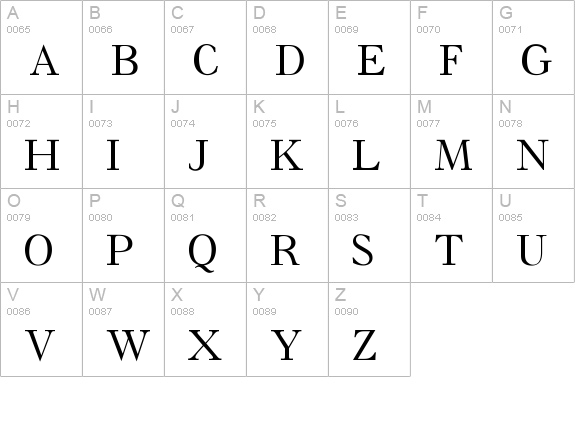
Westend Font Details
Westend font is a modern and stylish typeface that exudes sophistication and elegance. With its clean lines and sleek curves, this font is perfect for adding a touch of class to any design project. Whether you're creating a logo, designing a website, or crafting eye-catching advertisements, Westend font is sure to make a statement. What sets Westend font apart from other fonts is not only its striking appearance but also its versatility. It is suitable for both headlines and body text, making it a great choice for any type of project. The letters are well-spaced, ensuring readability and clarity even at smaller sizes. One of the best things about Westend font is that it is free to download. That's right, you can get your hands on this incredible font without spending a dime. Simply head over to FontsMarket.com and start using Westend font in your designs today. With its wide range of characters and glyphs, you'll have no trouble finding the perfect combination to bring your vision to life. Whether you're a professional designer or a hobbyist, Westend font is a must-have in your font collection. Its timeless and versatile design, coupled with its availability as a free download, makes it a valuable asset for any creative project. Don't miss out on the opportunity to elevate your designs with the unique charm of Westend font. Download it now and let your creativity soar.